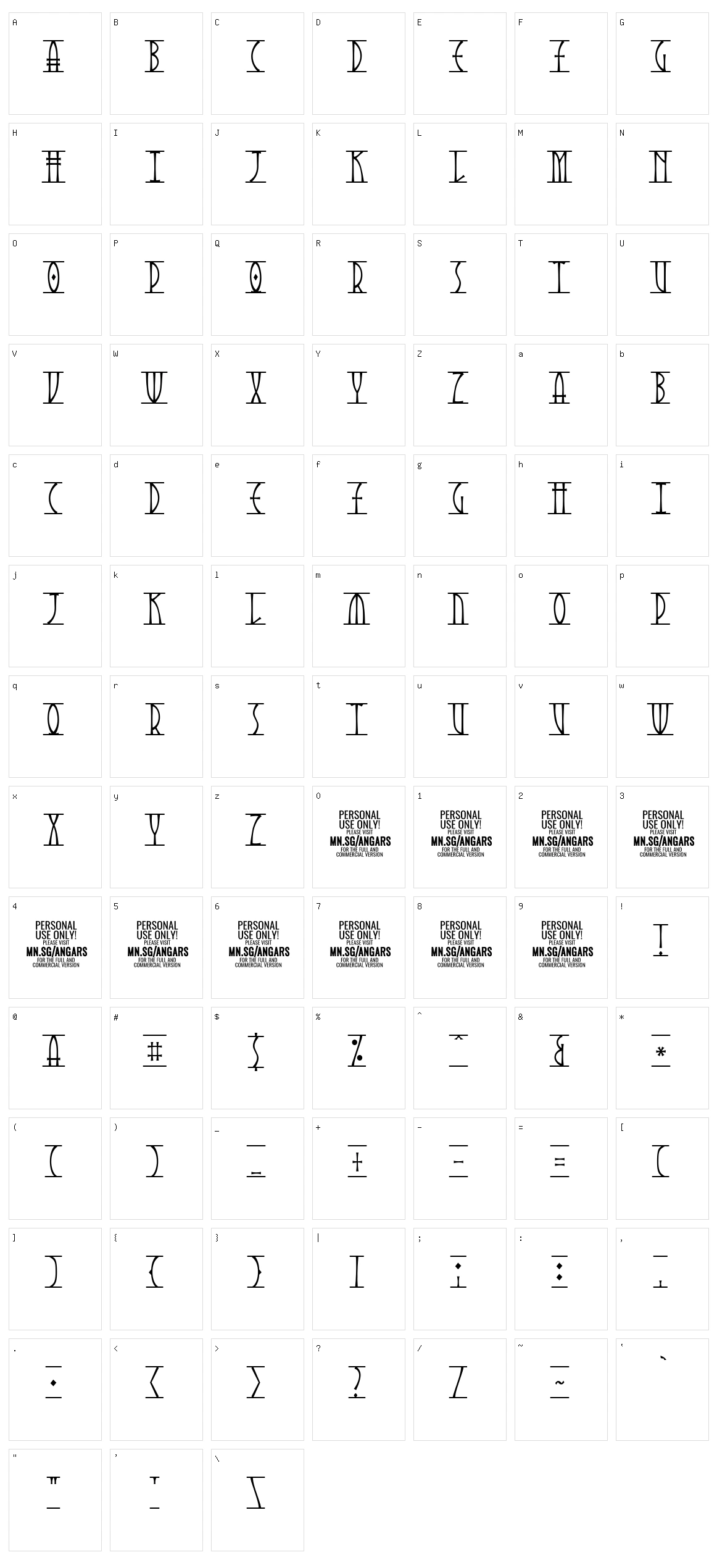
Angars Runes
Angars Runes is a Middle Age style rune typeface.
With engraved letterforms and gothic curves, this font is the perfect addition to a medieval project.
The font was drawn and created by Måns Grebäck in 2019.
Use the symbols plus + period . multiply × colon : for decorative separators.
Angars Runes contains all characters you will ever need, as well as numerals and alternate letters.
This is a font with multilingual support.